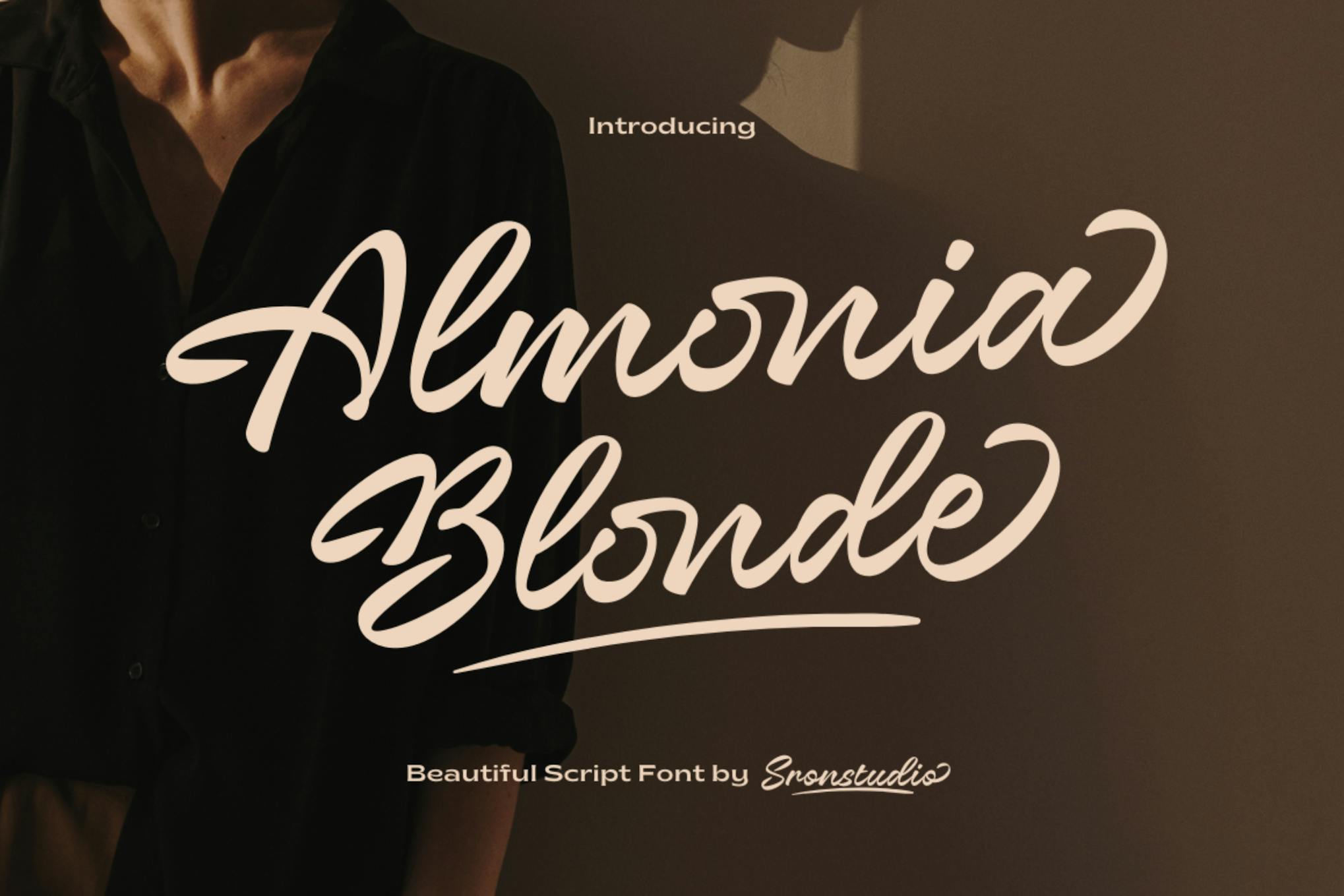
Almonia Blonde is a striking bold script font designed to elevate any creative project. Its fluid, elegant curves and confident strokes make it perfect for branding, invitations, and promotional materials. Offering a versatile look that works well at any size, this font enhances visual communication by adding a touch of sophistication and personality to designs.